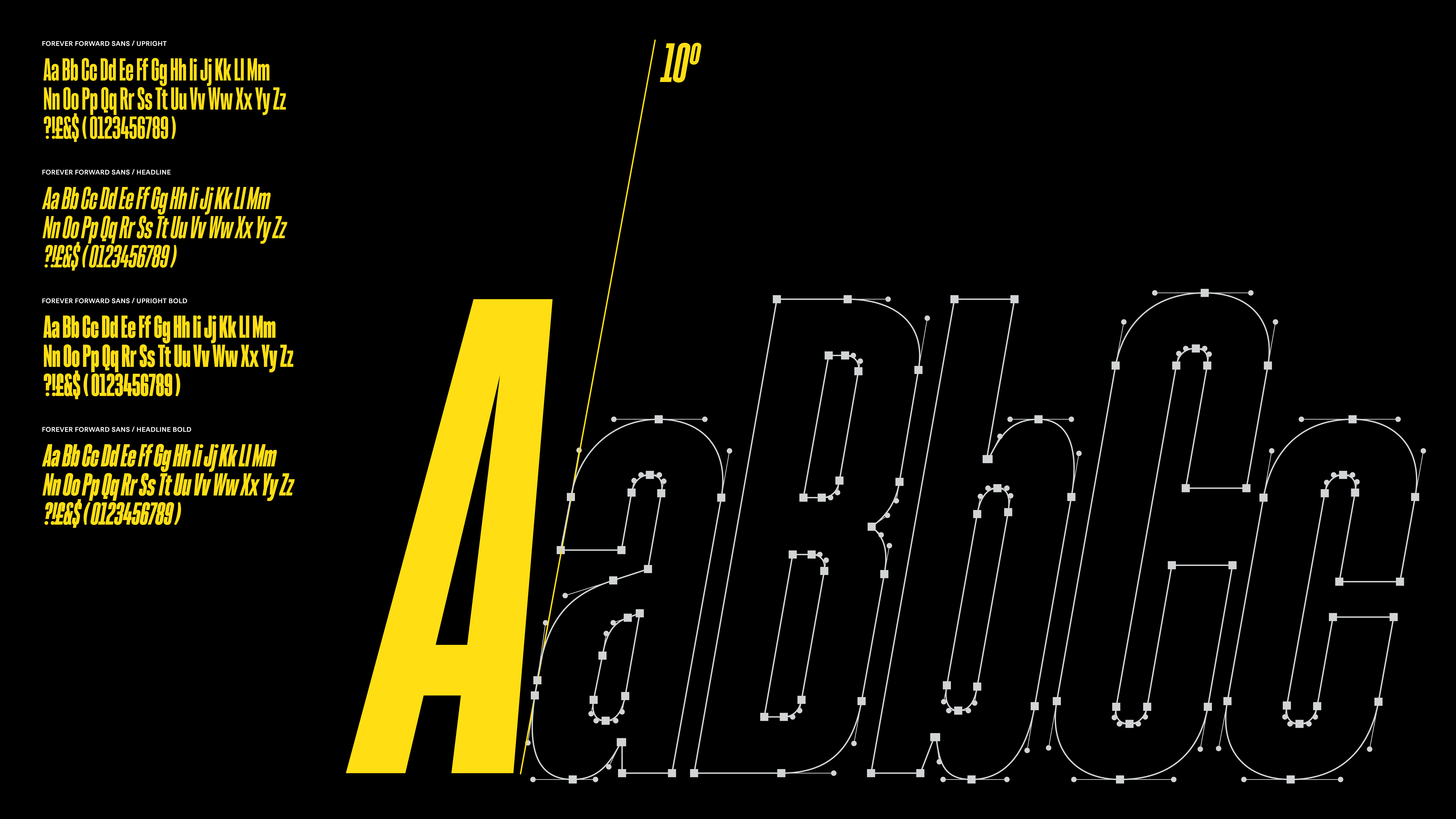
Bringing JD Sports’ energy and momentum to life through a unique modification of F37 Judge.
From its roots in the North-West of England, JD Sports has grown into an industry-leading sports fashion retailer with a global presence. The brand is bold and energetic, speaking to a diverse and fashion-conscious audience worldwide. Known for pushing boundaries in sports fashion, JD blends global influence with a distinct streetwear attitude.
The opening of their biggest ever store at the Trafford Centre in Manchester, UK, not far from their hometown of Bury, was due around the same time as this project was completed. This marked a key moment in the brand’s ongoing evolution and showed their respect for their Northern roots.
We were contacted by creative studio, Uncommon, to design a modified version of the Judge Condensed font for JD Sports. The aim was to create a font family with seamless multilingual support, along with seven language-specific logo lockups for the ‘Forever Forward’ campaign. The result needed to feel distinct and confident, aligning perfectly with the brand’s ethos and enabling them to communicate with a global audience.
F37® understood exactly what we needed and the process was great from start to finish. They delivered a typeface that felt bold, energetic and truly global. The font captures the spirit of JD Sports and gives us a confident and consistent voice across every platform and in every language.
The font family for JD Sports is a modified version of F37 Judge Condensed. JD wanted an impactful sans-serif with enough personality to capture the sense of movement that has defined the brand from the very start. F37 Judge was selected as the perfect starting point for this journey, thanks to its bold, condensed forms and confident, modern character.
We made key adjustments to the font, like increasing the italic angle to 10° to match the slant of the JD Sports logo. We refined the crossbar alignments on letters such as E, F, G, H, P and R to improve visual alignment and create a more balanced appearance. Additionally, the tail of the Q was squared off, giving it a cleaner and more assertive finish.
The font supports Latin, Greek and Arabic scripts, covering over 300 languages worldwide. We also created seven language-specific logo lockups for their ‘Forever Forward’ campaign to help them continue to speak to audiences globally.
The result is a robust typographic system that performs across multiple channels and languages, from the Trafford Centre all the way to the corners of the world. The font is a true reflection of a brand always moving Forever Forward.